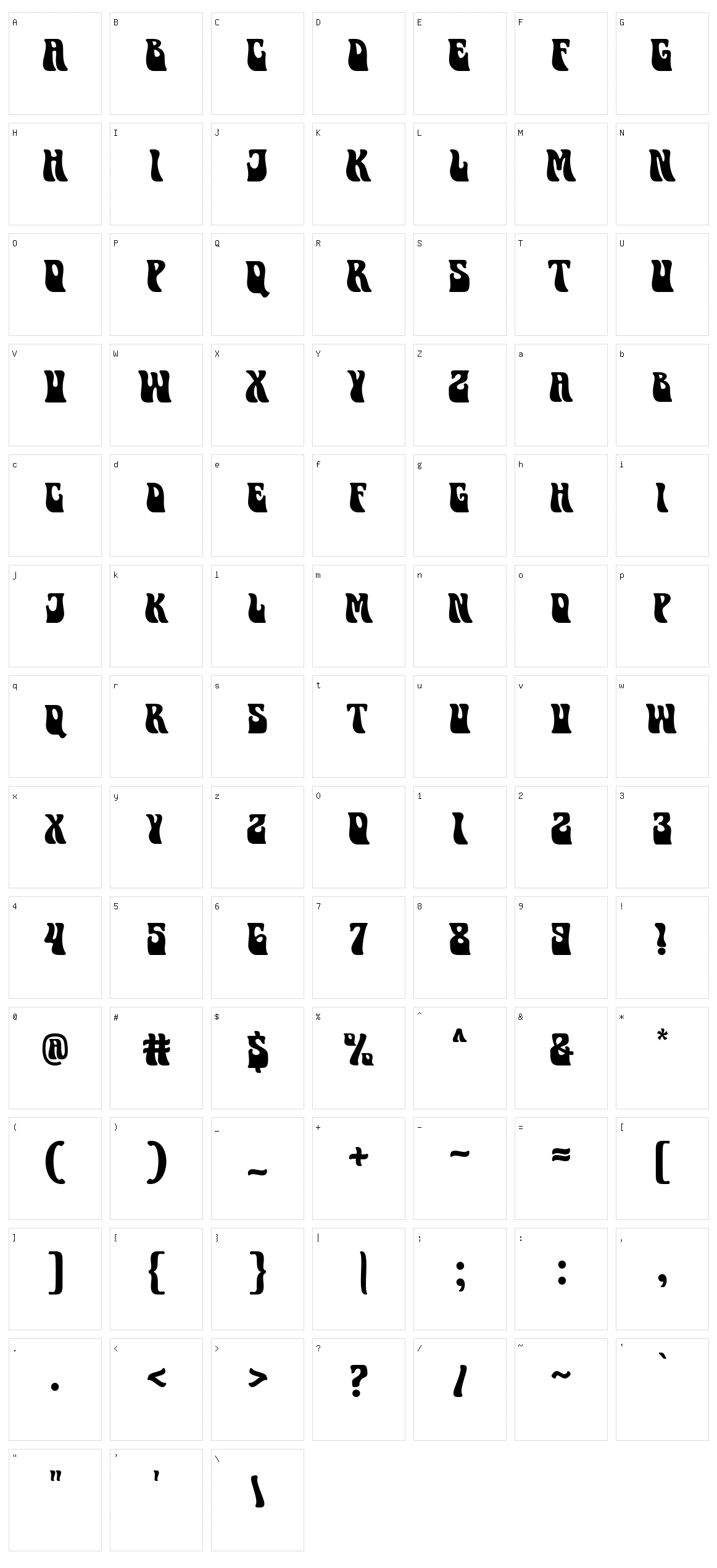
The free font Super Power is carefully designed by fsuarez913, showcasing a thoughtful balance of creativity and usability and falls under the Groovy font style. When you download the ZIP file, it contains only 84.48 KB of font files, making it lightweight and quick to download. Please review the license details below to understand permitted usage and distribution rights. If license information is not available, we recommend using this font for personal projects only or contacting the author directly for commercial usage permissions.